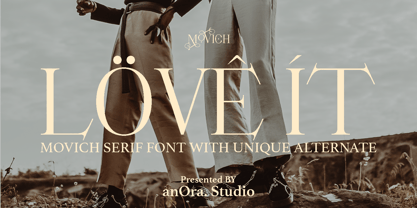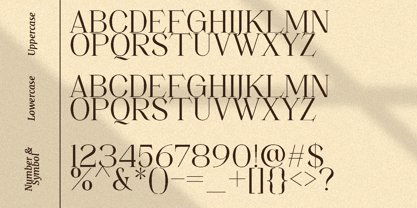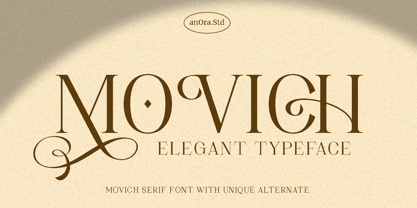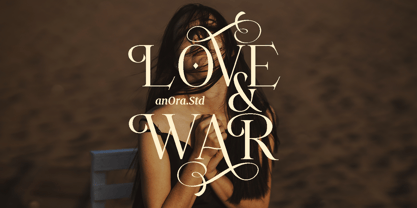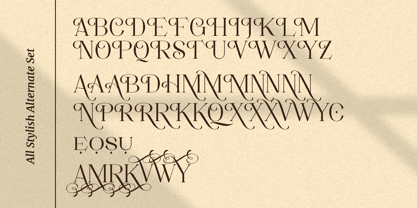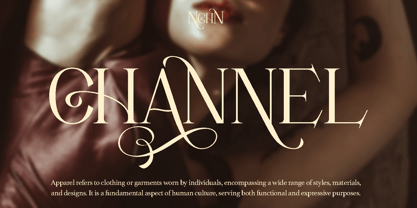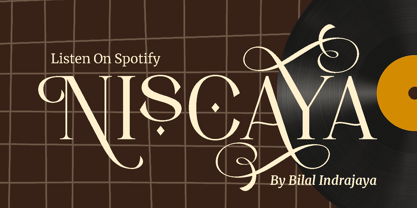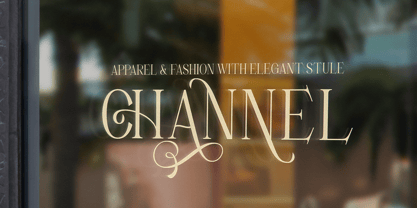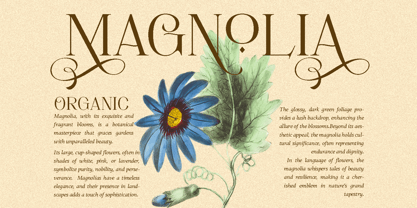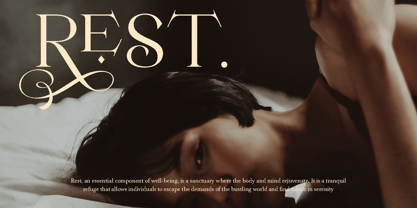
Movich
by Anora Studio
The Movich Font Family was designed by Sigit Mulyo Utomo and published by Anora Studio. Movich contains 1 styles. More about this family
Movich is an Uniquely Display Serif Font with Many Stylistic Alternates.
Designers: Sigit Mulyo Utomo
Foundry: Anora Studio